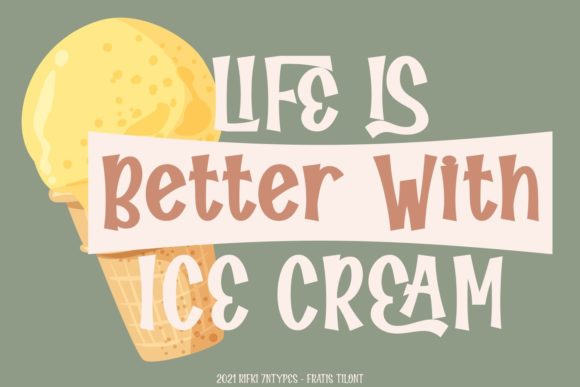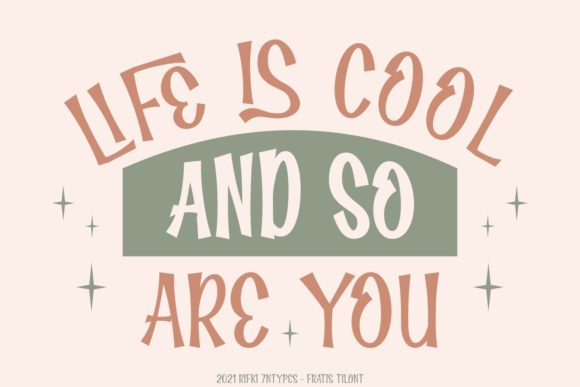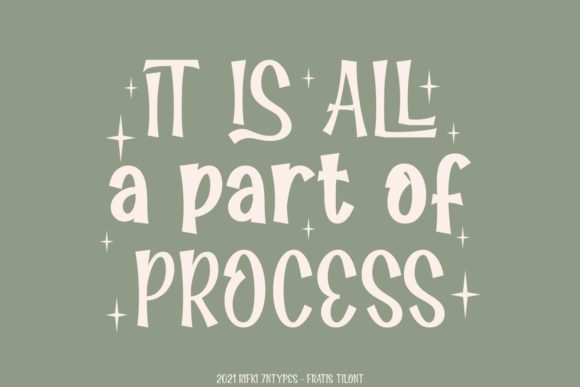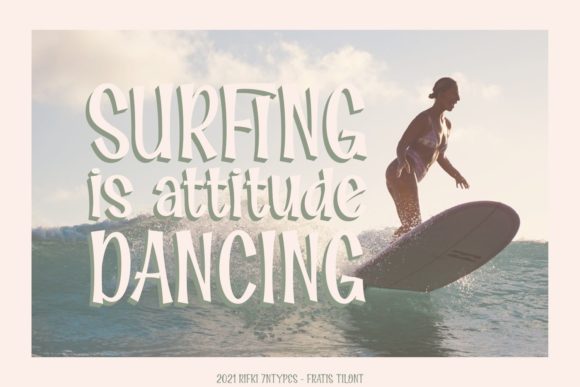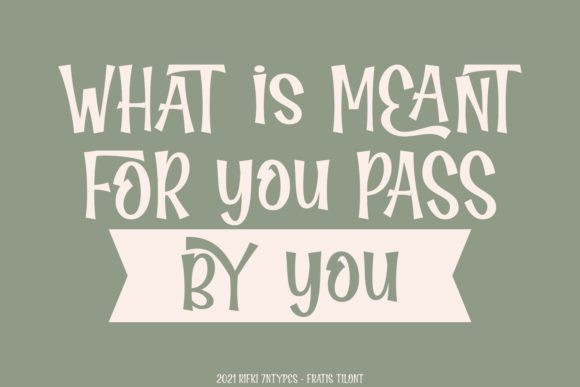
Introduction to Fratis Tilont Font
Fratis Tilont is a cool and quirky display font.
It reads as strong, confident, and dynamic and can add tons of nostalgic character to your designs This font is PUA encoded which means you can access all glyphs and swashes with ease.